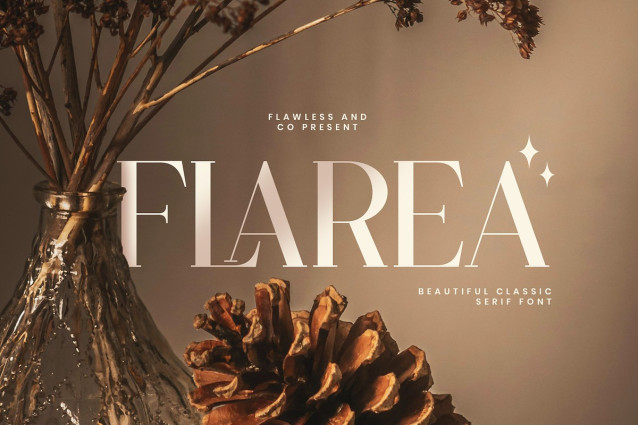
Flarea Font
Flarea Font is a beautiful serif font crafted with graceful proportions and timeless elegance. Designed to highlight sophistication and charm, Flarea features smooth contrasts, refined curves, and classic letterforms that bring a luxurious and warm feel to any design. Its balanced structure makes it both visually striking and easy to read, perfect for premium and artistic projects.